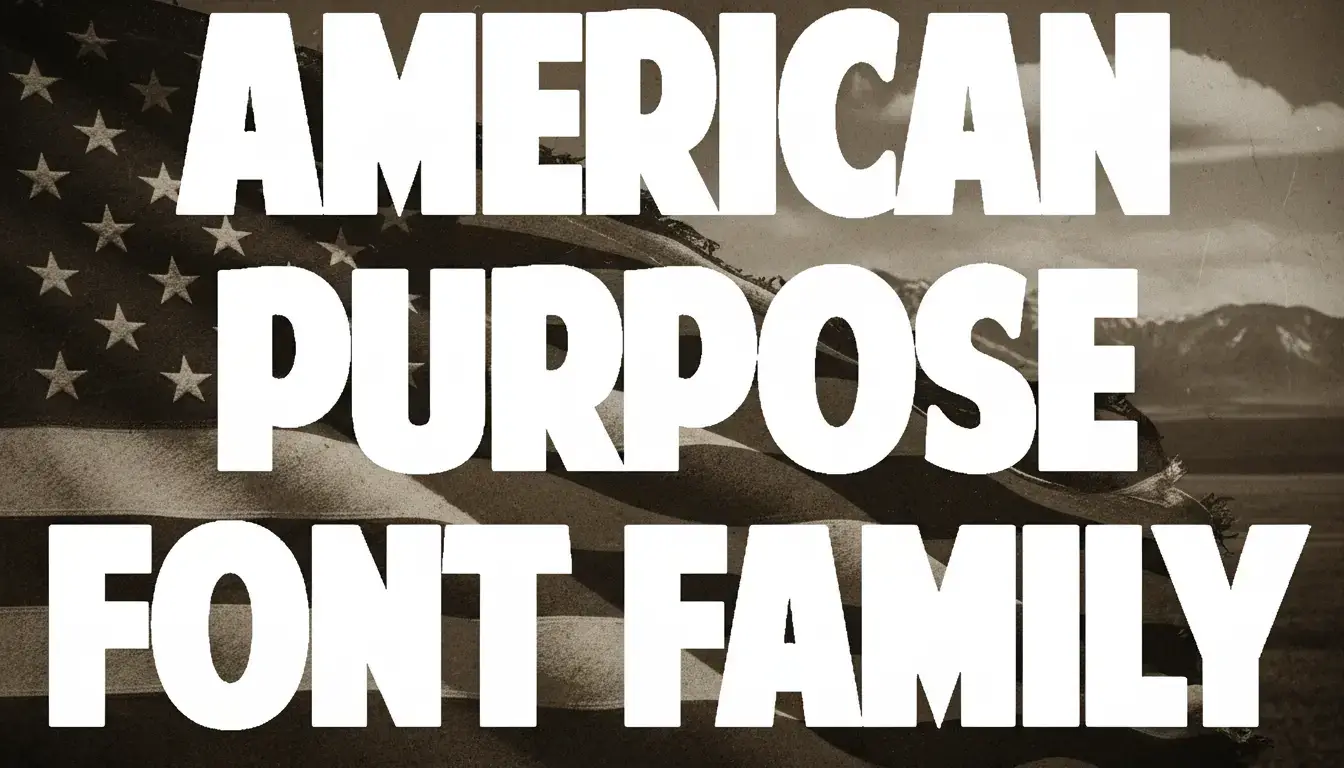
Michael Gene Adkins designed The American Purpose font family, a bold, patriotic display sans-serif collection, and The Fontry released it. The font family ties strongly to comic book, military, and cinematic branding (sharing design roots with the famous Captain America movie title typography). Adkins engineered it specifically to withstand heavy text warping, enveloping, and vector path manipulation without distorting.
American Purpose Font Family
American Purpose Font Family is a sans serif font designed by The Fontry (2011).